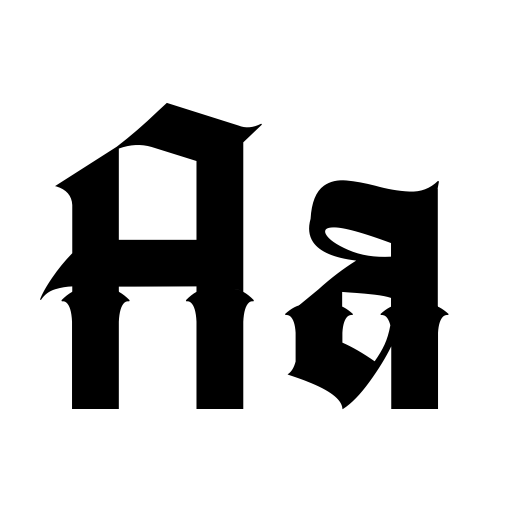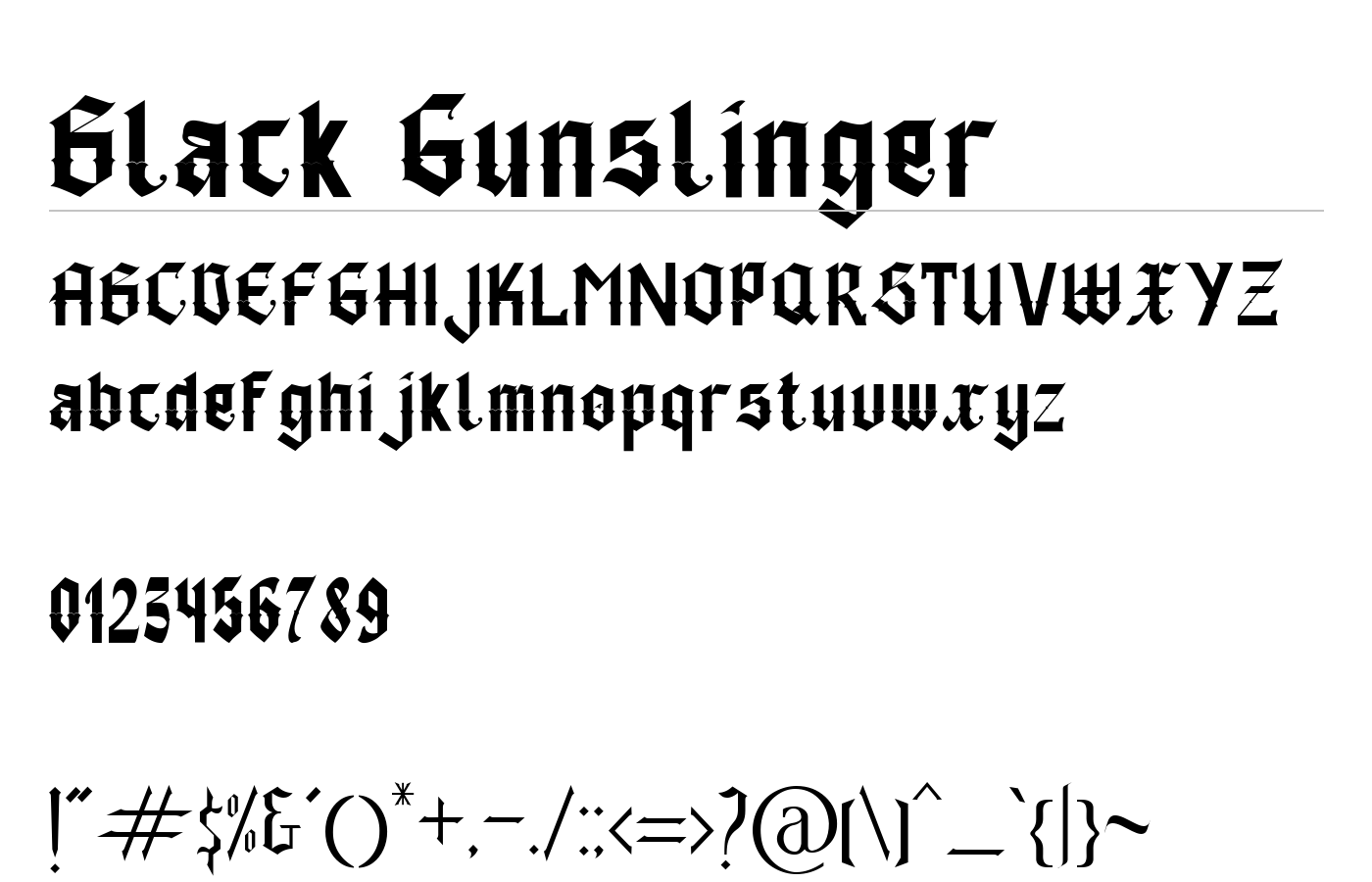
Black Gunslinger is a bold, blackletter-inspired serif font with strong, angular shapes and sharp, dramatic strokes that evoke a gothic, medieval vibe. Its condensed, heavy letterforms with high contrast and ornate details make it perfect for striking headlines, vintage-themed branding, and edgy designs seeking a blend of old-world character and bold modern impact. This font stands out for its distinctive personality, working well in posters, logos, and creative projects that need a powerful, historic touch.
Black Gunslinger Font
About Black Gunslinger Font
| Font family | Black Gunslinger Font |